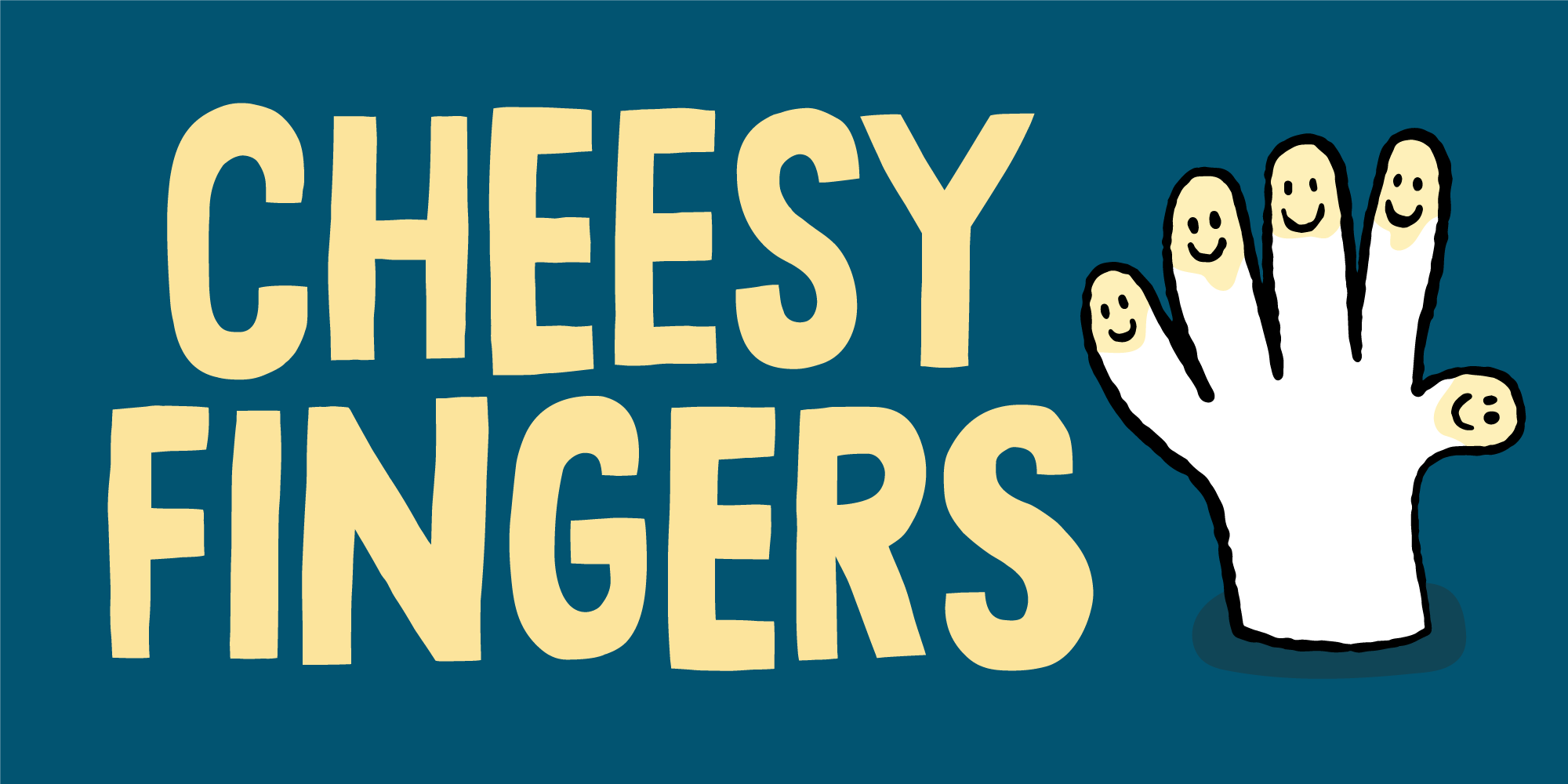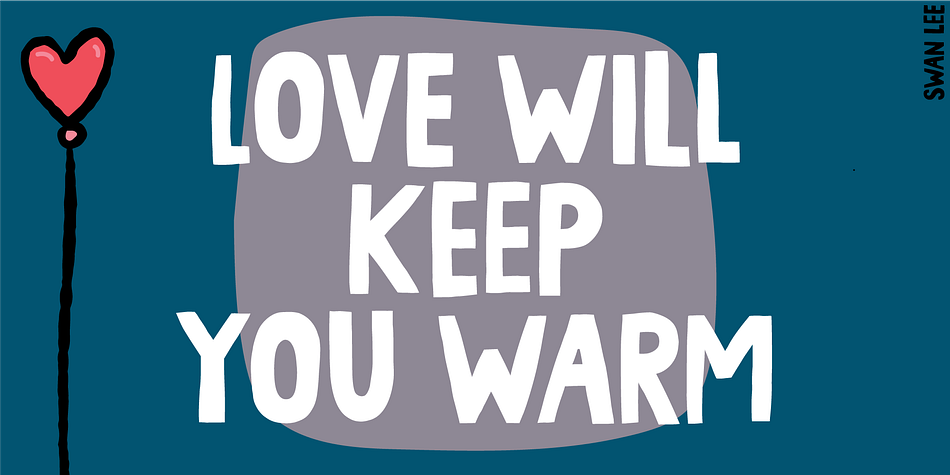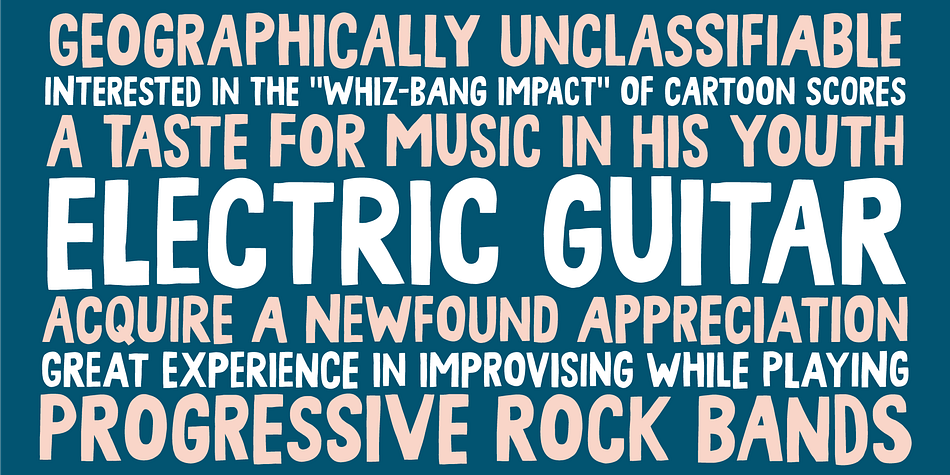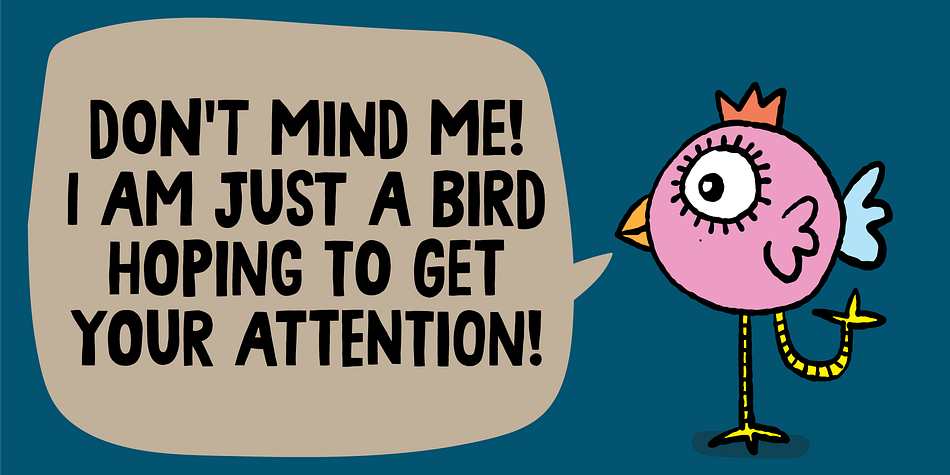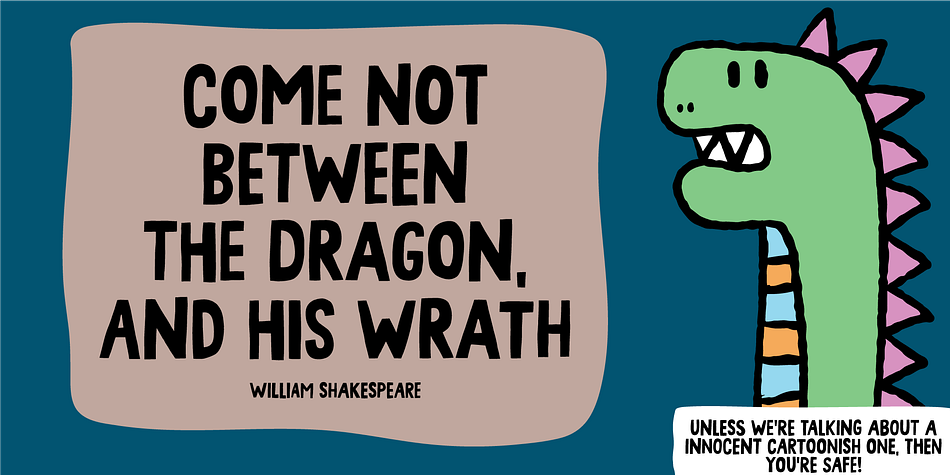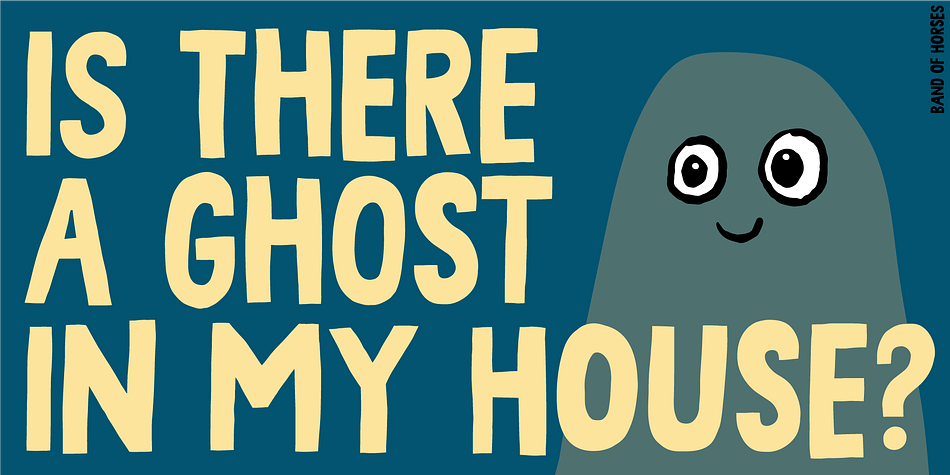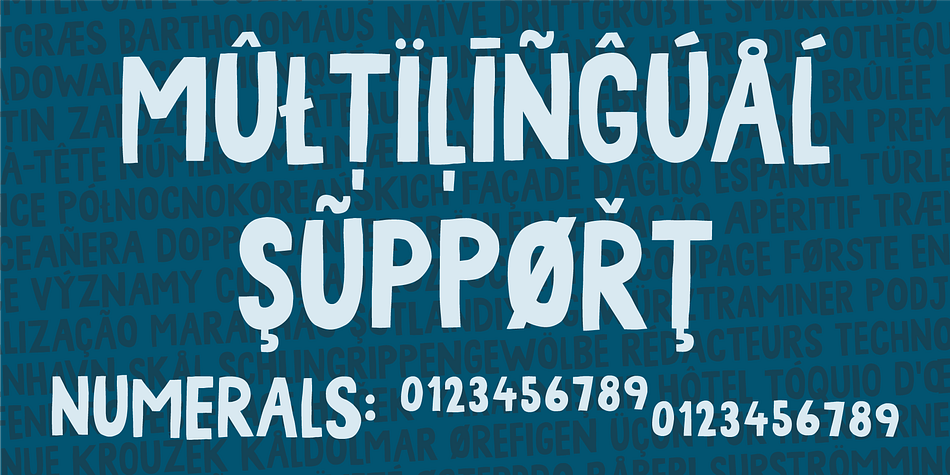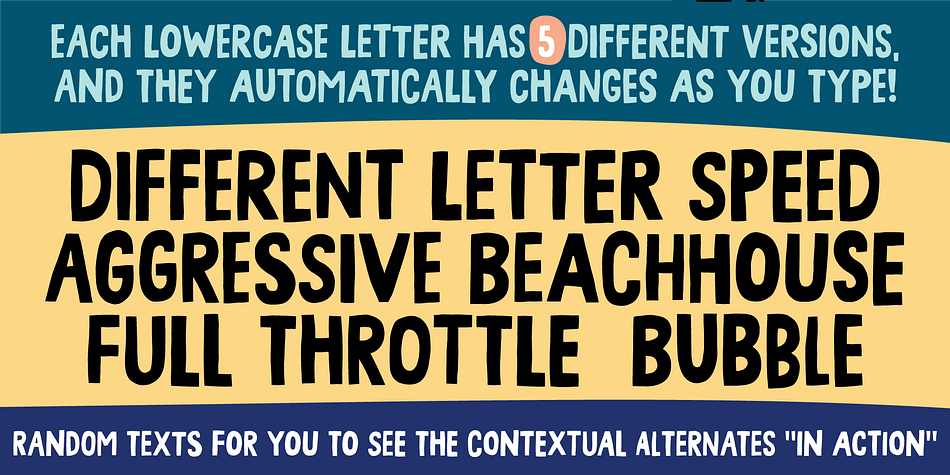
Cheesy Fingers
Designed by Jakob Fischer, Cheesy Fingers is a kids font family. This typeface has two styles and was published by Pizzadude.dk.
I love cheese snacks in all kinds of variations. As a kid I even loved having chessy fingers, but as an adult I prefer to wash my hands (instead of licking and sucking each finger “clean”)
So, as a loving memory of an all time favourite snack, I made this all caps organic looking sans. Obviously handmade, and cleaned up digitally…just a little bit.
Furthermore I have made 5 different versions of each letter and made sure that there is plenty of multilingual support!